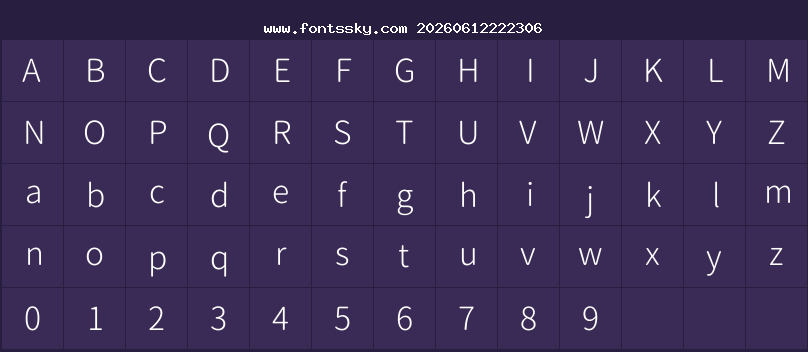
Font Collection Details
.HeitiUI TCPreview Images
• Font Name: .HeitiUI TC
• Font Style: 啬瑲愠䱩杨?
• Full Font Name: .HeitiUI TC Ultra Light
• Manufacturer: SinoType
.HeitiUI SCPreview Images
• Font Name: .HeitiUI SC
• Font Style: Ultra Light
• Full Font Name: .HeitiUI SC Ultra Light
• Manufacturer: SinoType
.HeitiUI GB18030PUAPreview Images
• Font Name: .HeitiUI GB18030PUA
• Font Style: Ultra Light
• Full Font Name: .HeitiUI GB18030PUA Ultra Light
• Manufacturer: SinoType
.HeitiUI KPreview Images
• Font Name: .HeitiUI K
• Font Style: Ultra Light
• Full Font Name: .HeitiUI K Ultra Light
• Manufacturer: SinoType
.HeitiUI JPreview Images
• Font Name: .HeitiUI J
• Font Style: Ultra Light
• Full Font Name: .HeitiUI J Ultra Light
• Manufacturer: SinoType
.HeitiUI SCPreview Images
• Font Name: .HeitiUI SC
• Font Style: Ultra Light
• Full Font Name: .HeitiUI SC Ultra Light
• Manufacturer: SinoType
About .HeitiUI TC.ttc [TrueType Collection]
.HeitiUI TC.ttc [TrueType Collection] is a modern, elegant sans-serif font designed for ultimate readability and visual harmony. Perfect for branding, headlines, web design, and print materials.